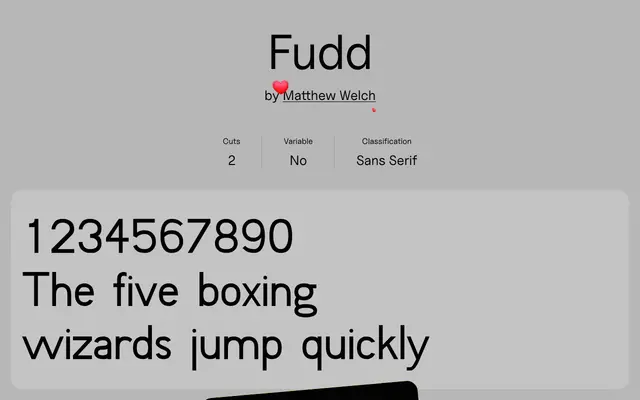
Fudd
A two-cut sans serif by Matthew Welch, available free for commercial and personal use under the SIL Open Font License.
A straightforward sans serif released in two cuts with no variable axis. Licensed under SIL OFL 1.1, it permits commercial use, modification and redistribution with certain conditions. Little distinguishing detail is provided, placing it in the category of functional, freely available typefaces.
Listed simply as Sans Serif with no further subdivision; insufficient detail to assign a more specific subcategory such as grotesque or geometric.